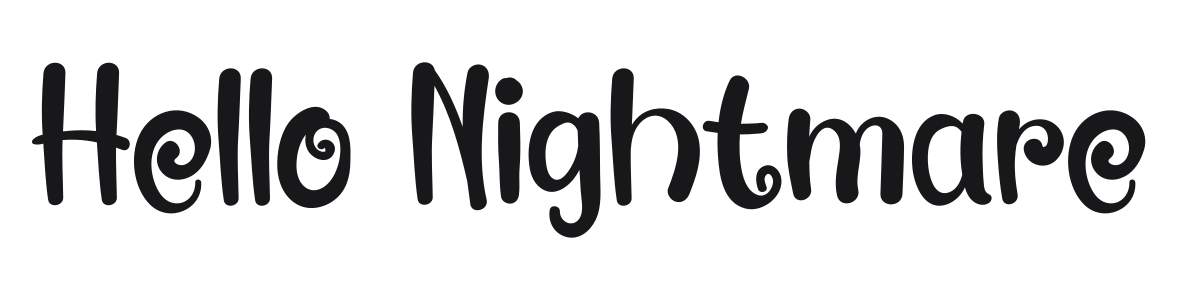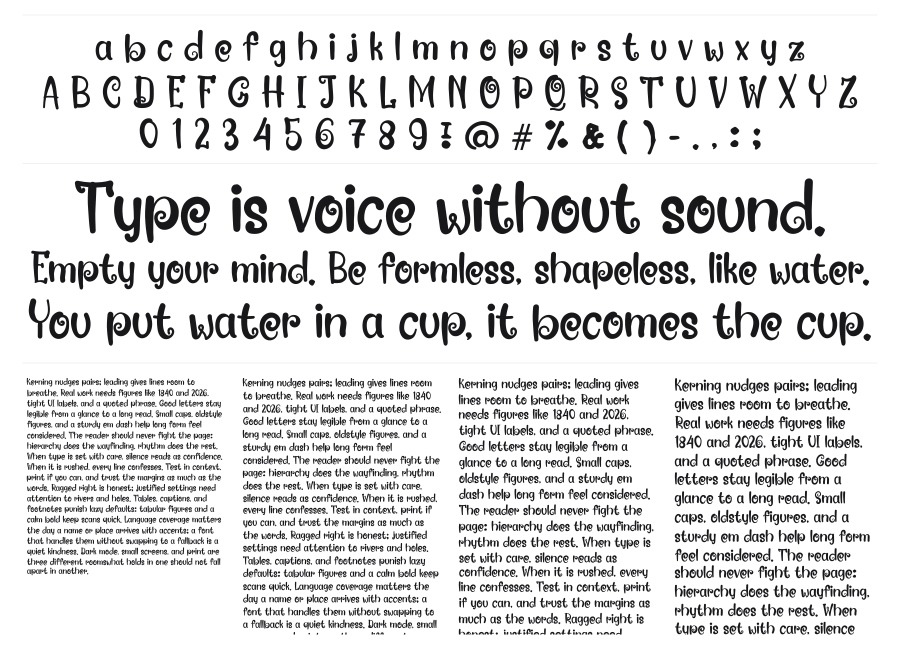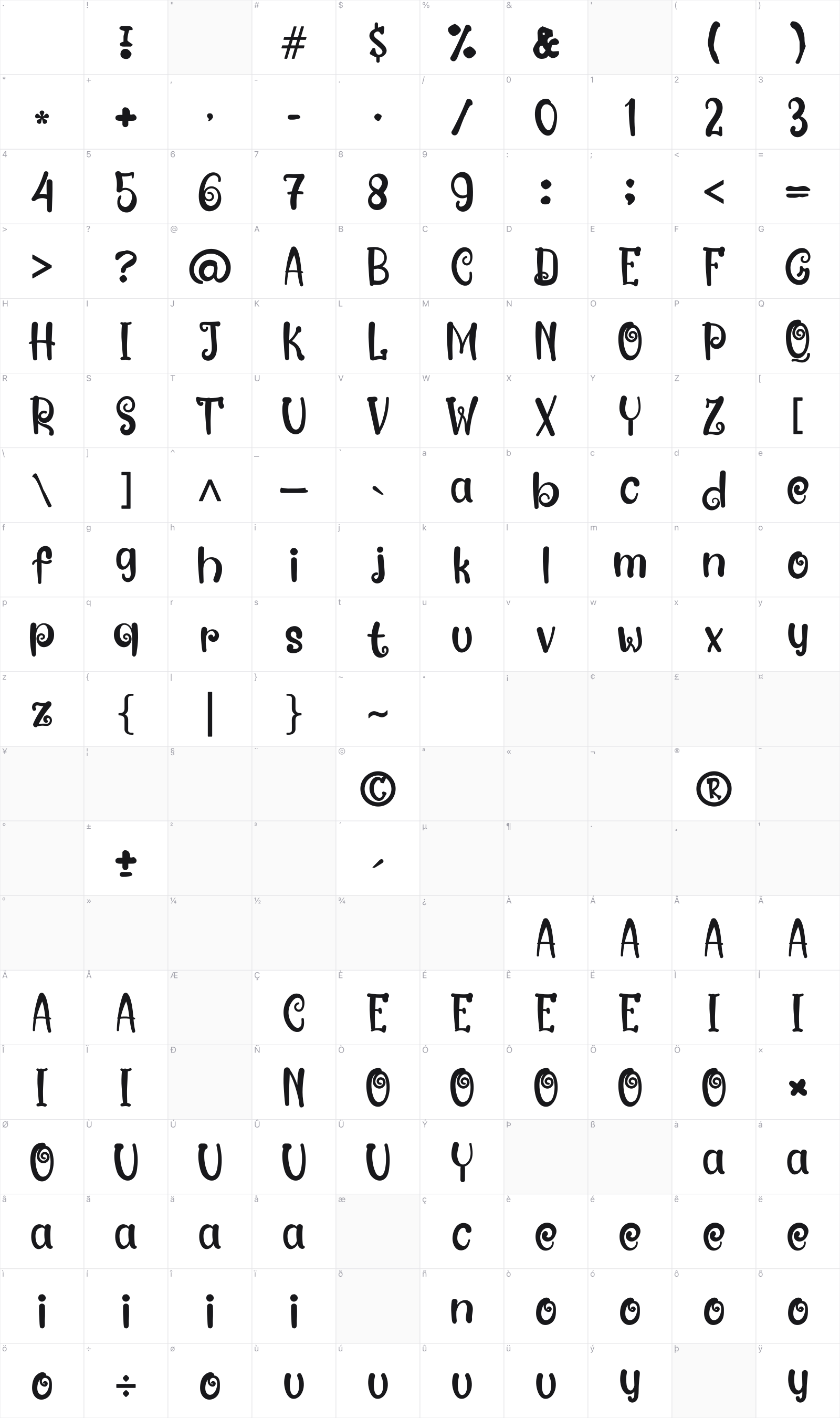
Hello Nightmare
Hello Nightmare is a bold casual script packed with curling terminals and a bubbly, hand-drawn energy. The heavy rounded strokes and swirling details give it an exuberant, storybook personality that reads loud at large sizes. Despite the spooky name, the overall feel is warm and playful rather than frightening.